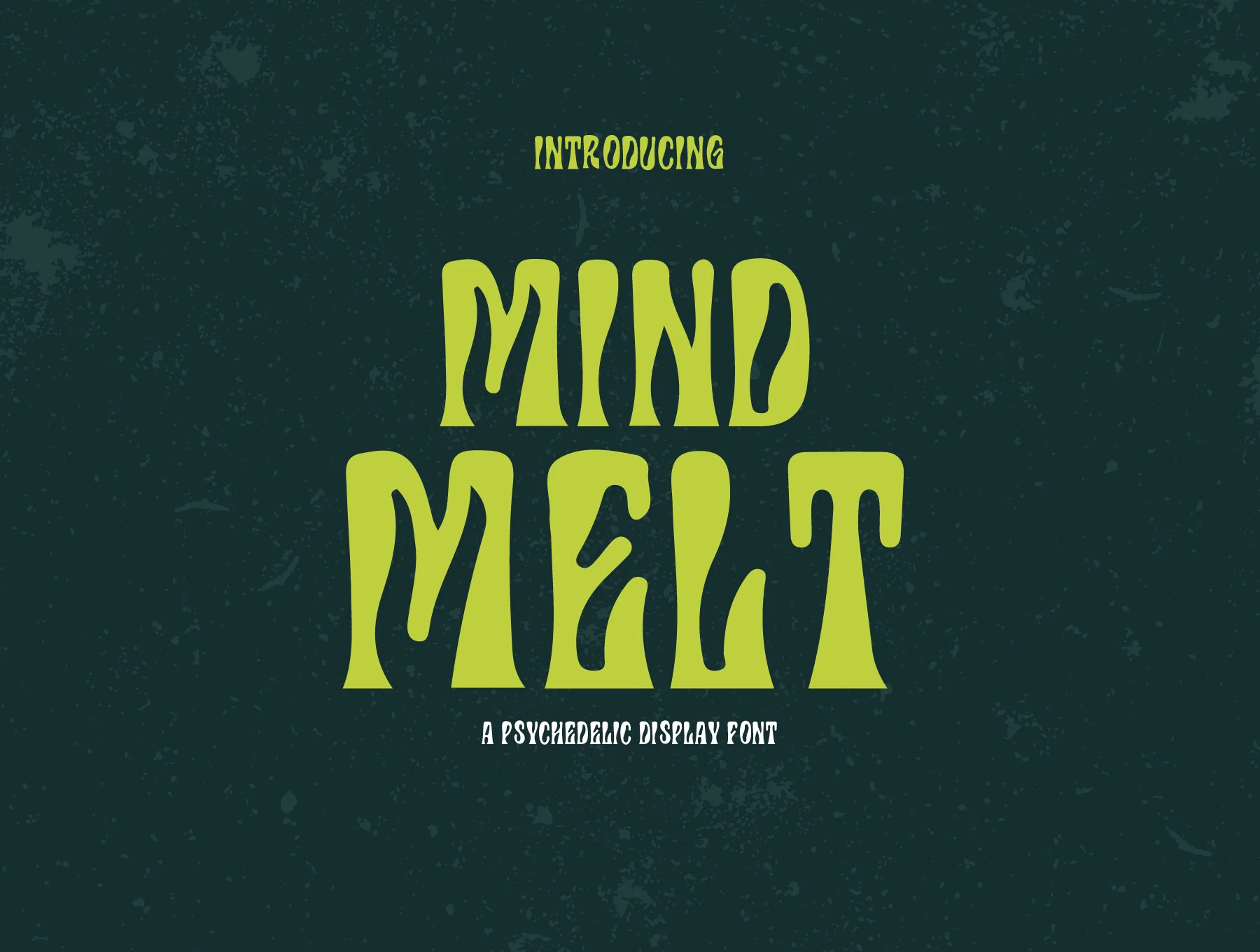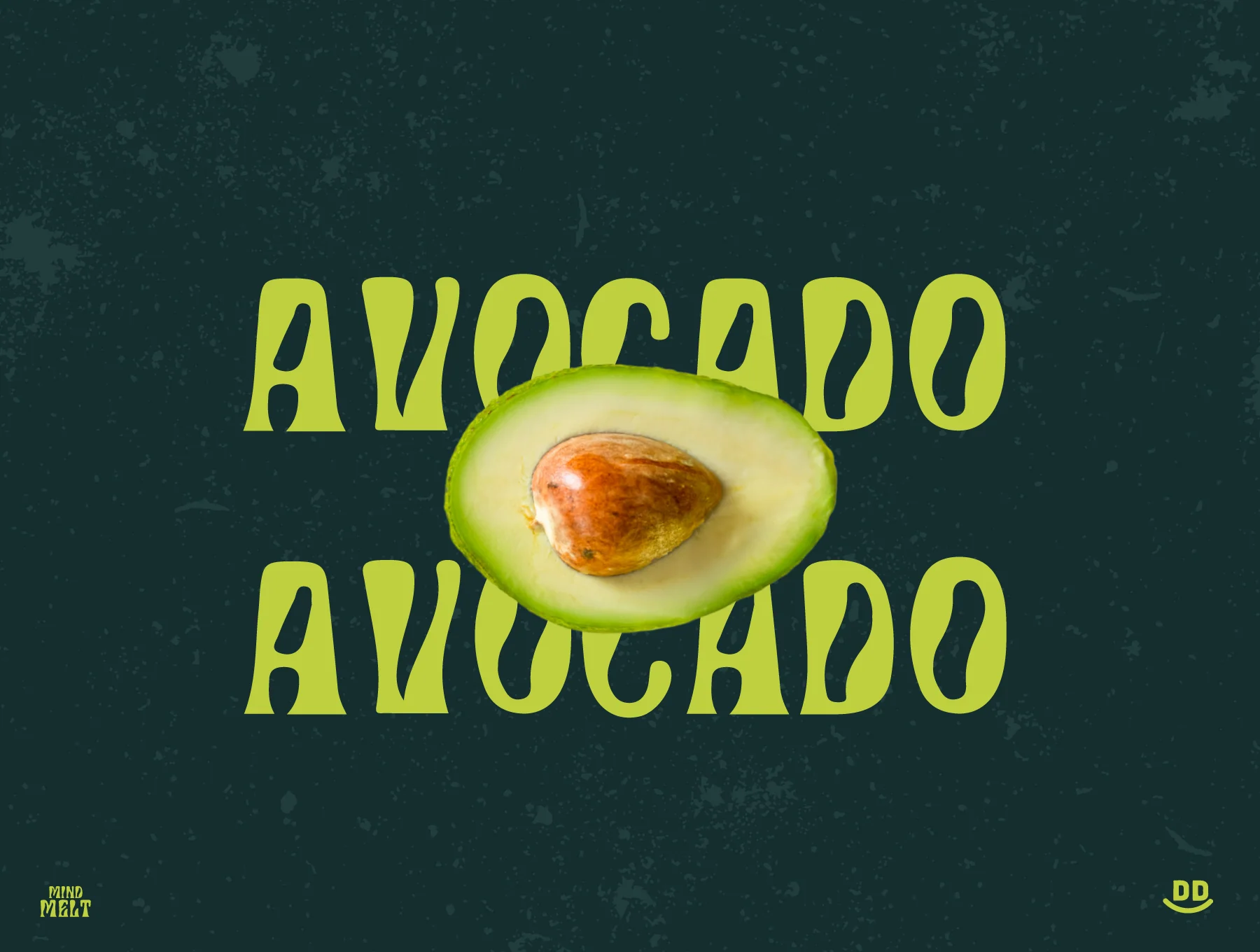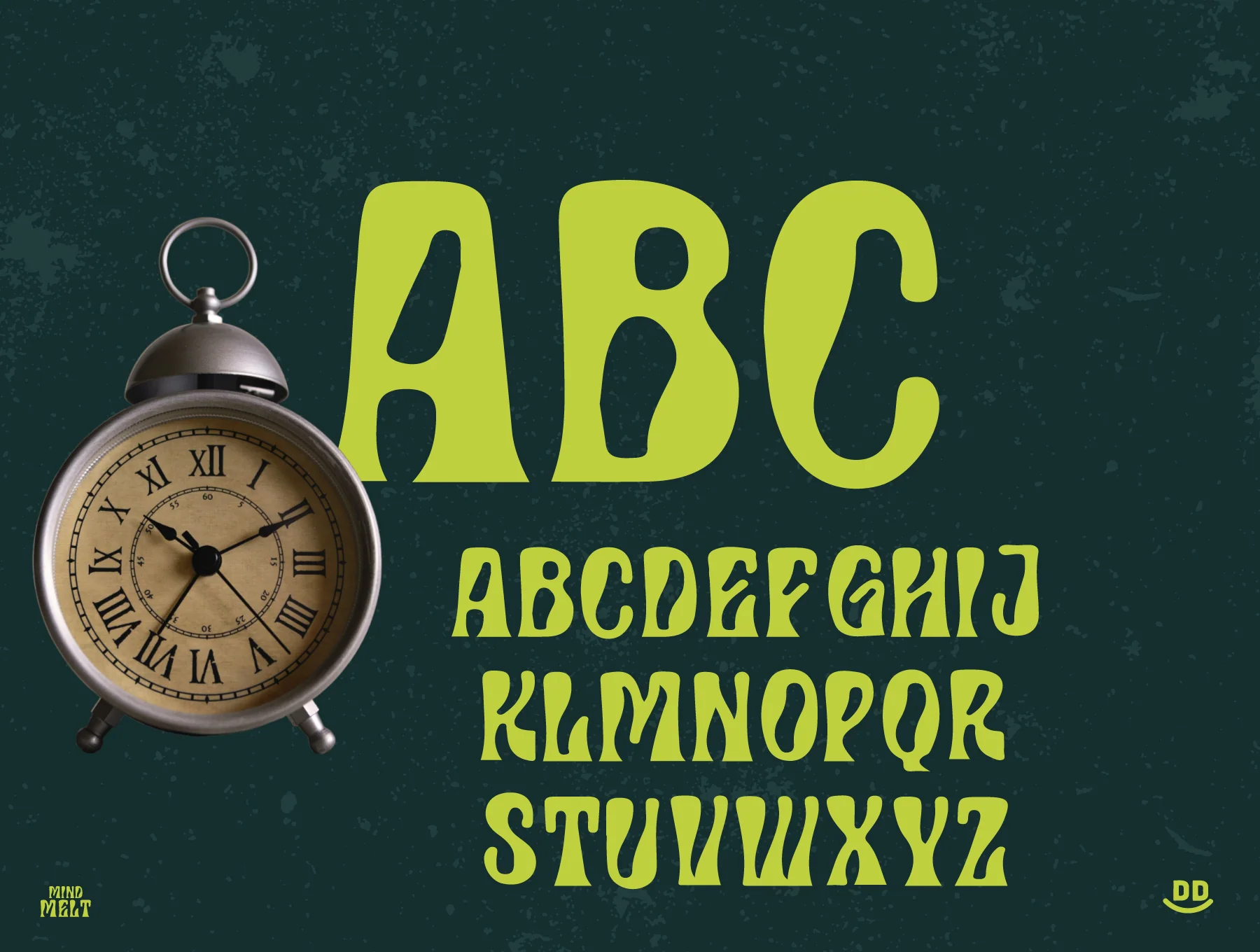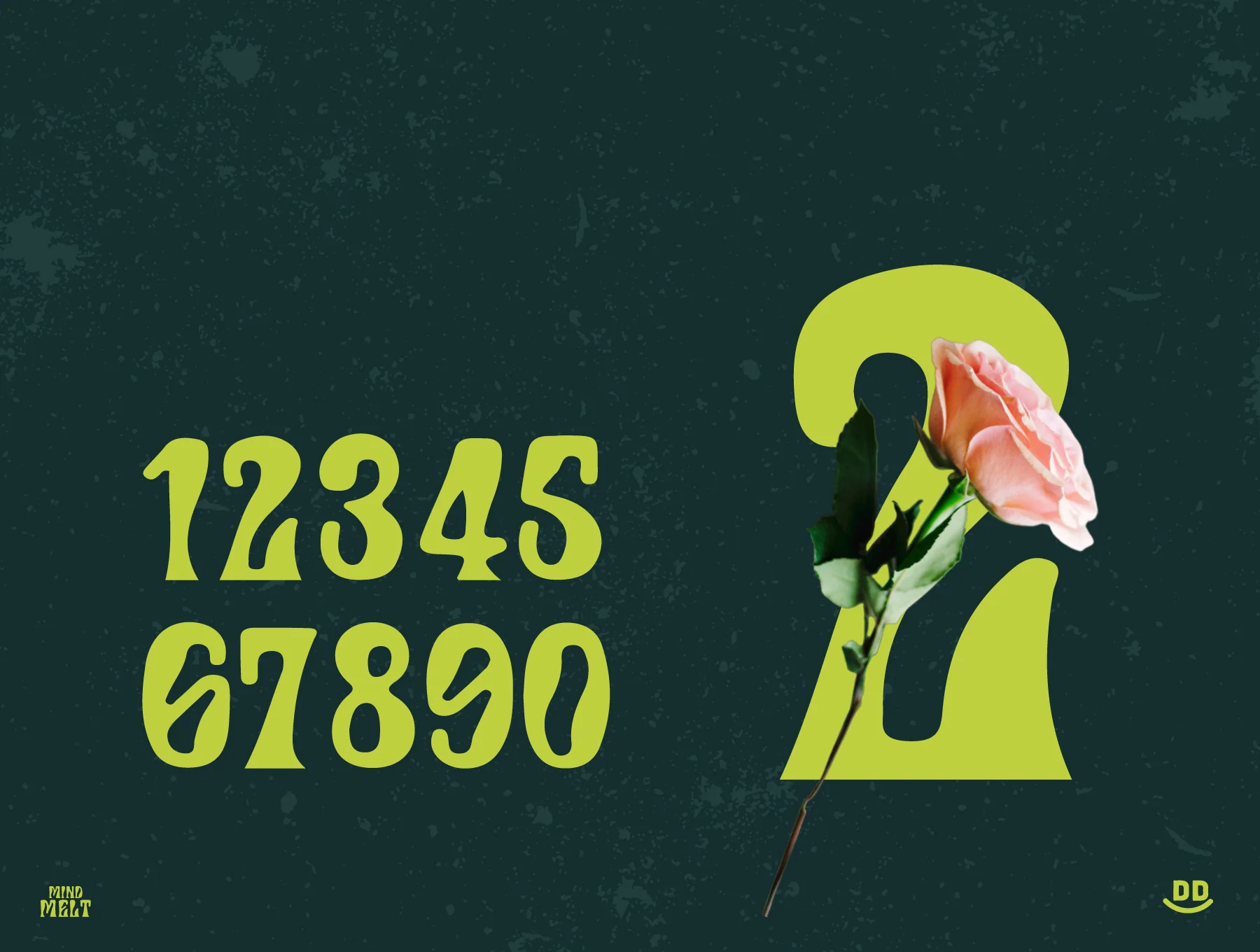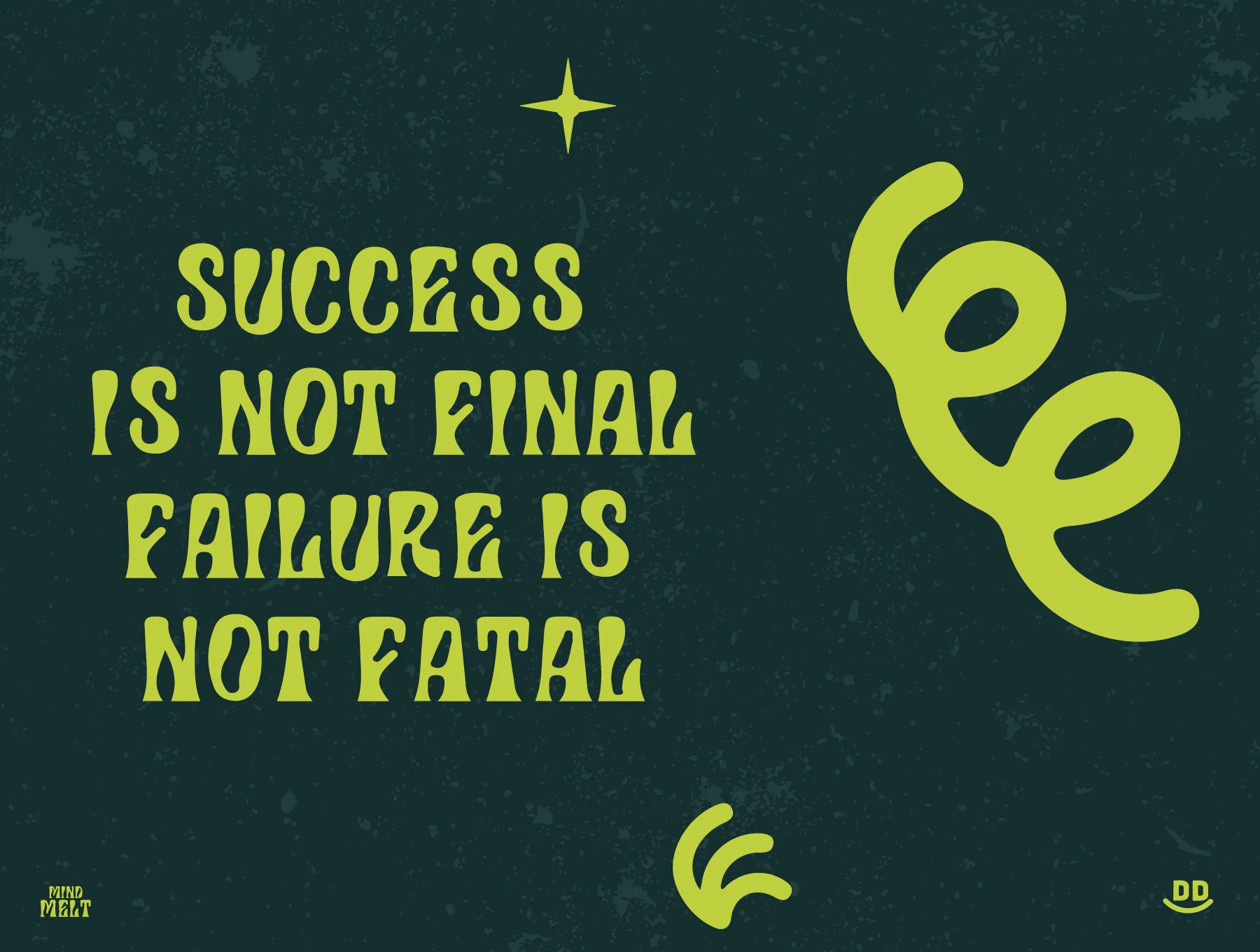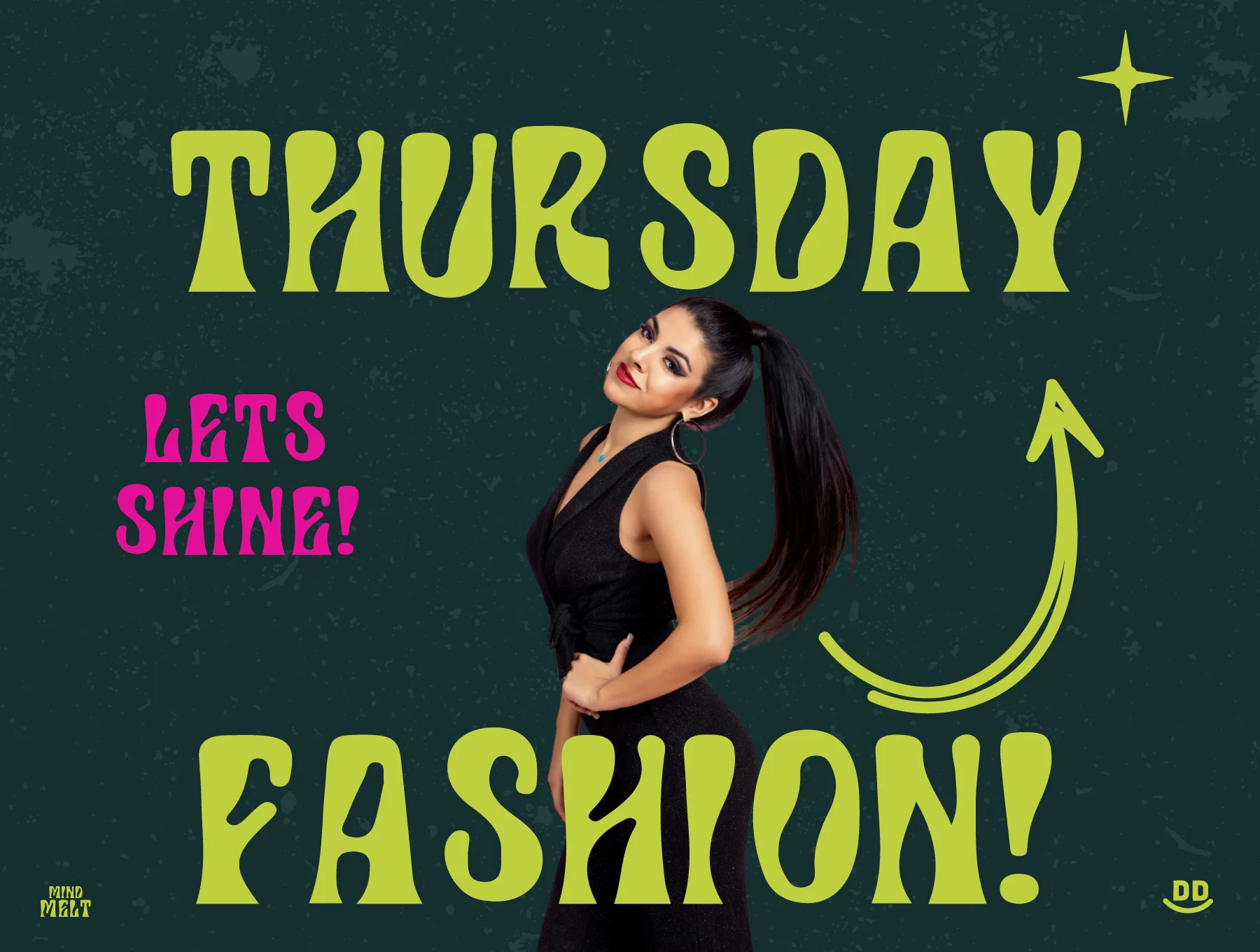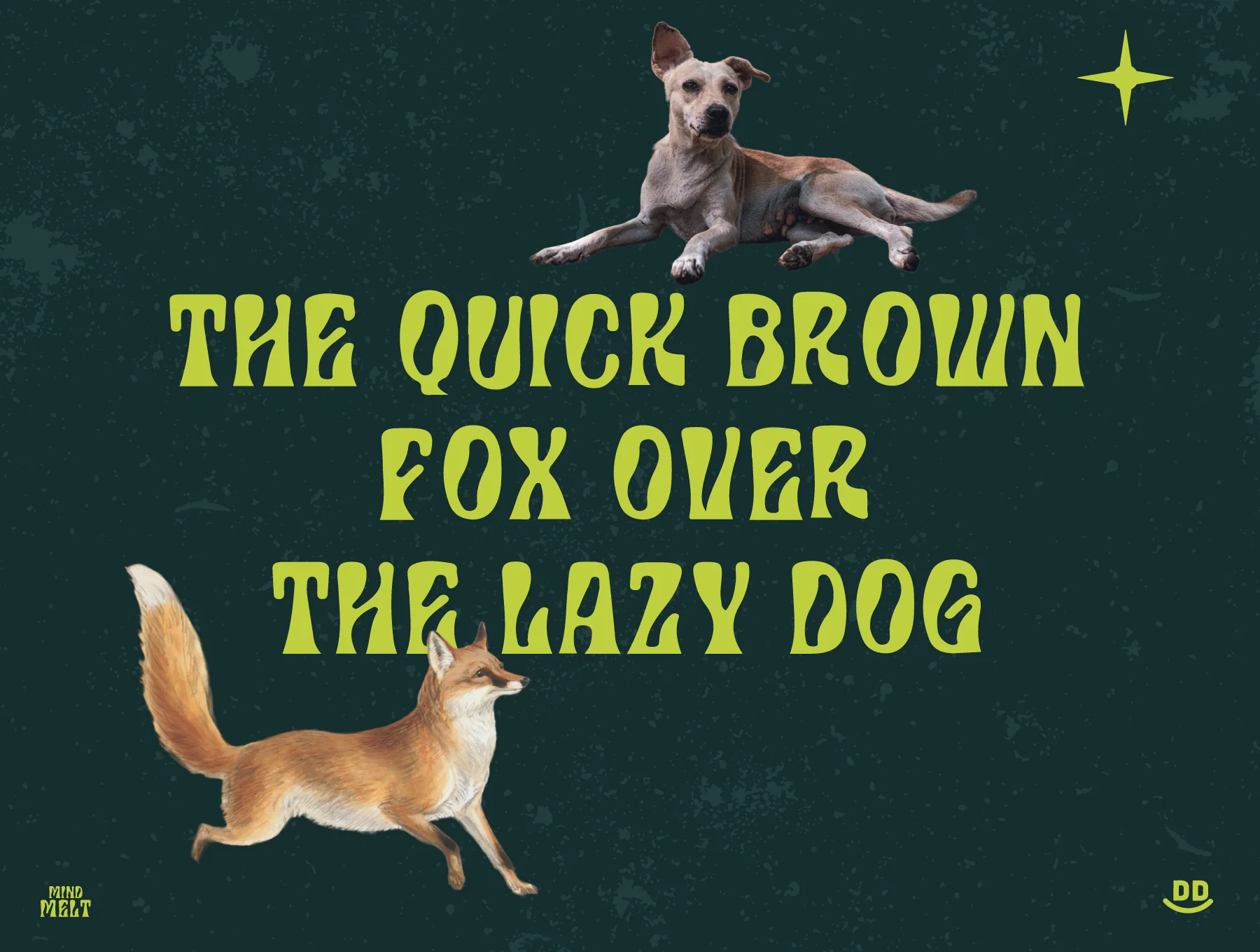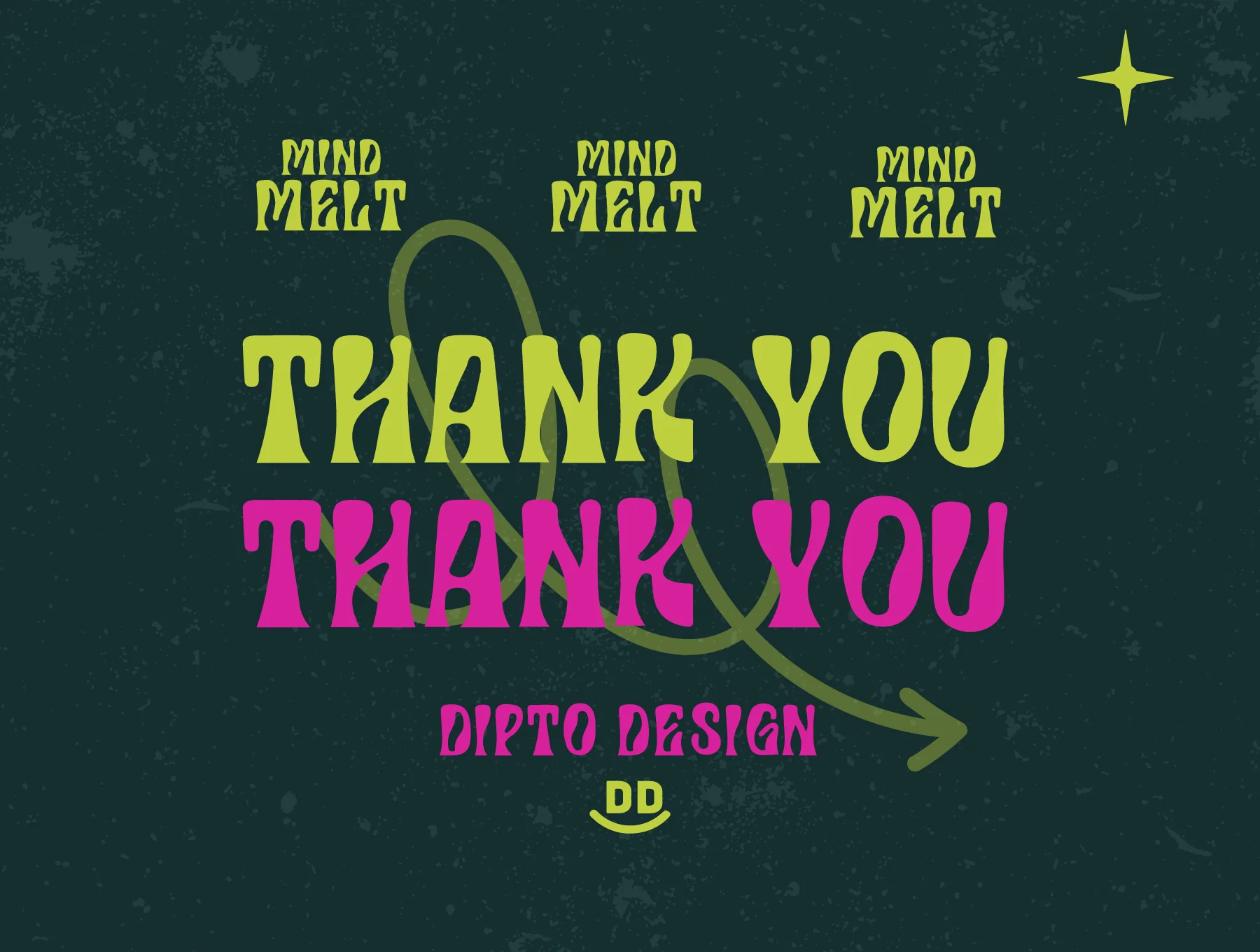
MindMelt Display Font
Trippy Decorative Typeface
Swirling Symbol Forms
Bold Spectrum of Colors
Smooth Visual Integration
Artistic Flexibility
Meet “MindMelt” 🔮✨, a psychedelic typeface that pushes lettering into a vivid new realm. Its swirling glyphs, liquid curves, kaleidoscopic shapes, and bold color palette bring surreal energy to posters, album art, and standout designs. Includes OpenType support, smooth design integration, expressive versatility, and room for creative freedom.